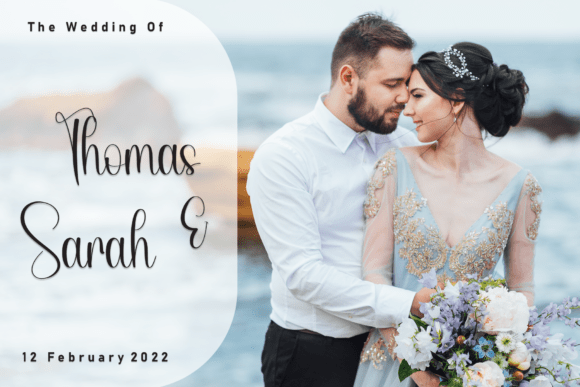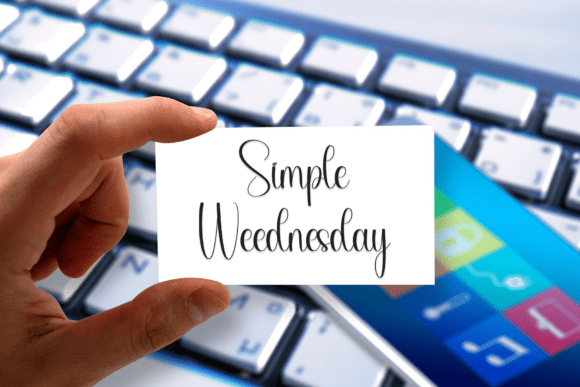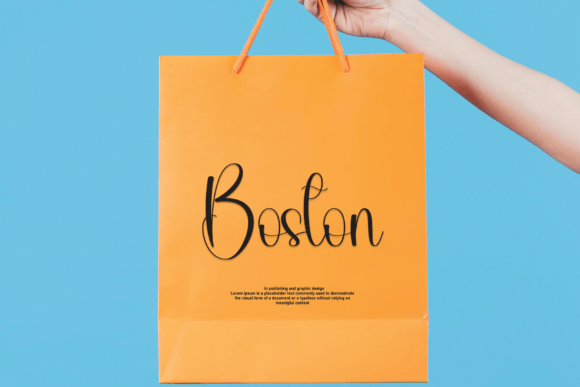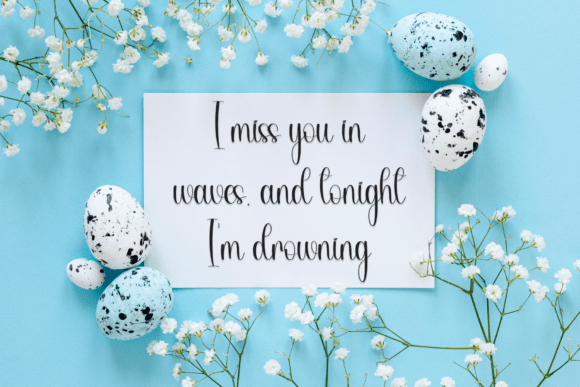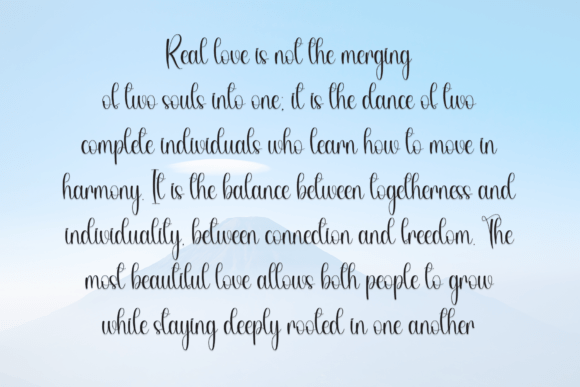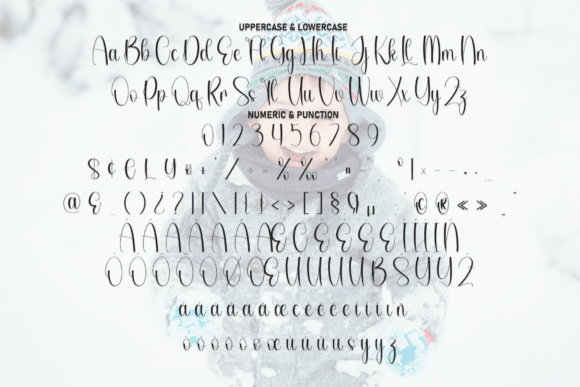
Introducing Babywinter Font: The Whimsical Display Font for Joyful Designs
In the world of typography, few fonts manage to strike the perfect balance between allure and warmth. But Babywinter Font is here to change the game. This delightfully whimsical display font is meticulously curated with the love of craftsmanship, making it the ultimate choice for designers and crafters looking to add a touch of magic to their creations.
The Charm of Babywinter Font
Babywinter Font is gifted with an irresistibly enchanting charm that drenches every word and sentence in a splash of joy. Its unique and playful design makes it perfect for intimate wedding invites, emotive greeting cards, and more. Whether you’re a designer looking to create something special for your clients or a crafter seeking to add a personal touch to your projects, this font is sure to impress.
A Font that Speaks the Language of Affection and Happiness
Babywinter Font is consciously crafted to elicit grins and inject a lively flair into your artistic pursuits. Its jovial design is sure to bring a smile to anyone’s face, making it the perfect choice for projects that require a touch of whimsy and fun. With this exceptionally unique handwritten font, you can let your designs emanate the language of affection and happiness, creating something truly special and memorable.
Babywinter Font is versatile and can be used for a variety of design projects, including:
- Intimate wedding invites and save-the-date cards
- Emotive greeting cards for special occasions
- Whimsical branding and packaging designs
- Playful posters and flyers
- Personalized gifts and crafts
Why Choose Babywinter Font?
So, what sets Babywinter Font apart from other fonts? Here are just a few reasons why designers and crafters love this font:
- Unique and playful design: Babywinter Font boasts a one-of-a-kind design that’s sure to grab attention and leave a lasting impression.
- Highly legible: Despite its whimsical nature, Babywinter Font remains highly legible, making it perfect for body text and headlines.
Tips for Using Babywinter Font
To get the most out of Babywinter Font, here are a few tips to keep in mind:
- Pair it with a neutral font: Babywinter Font is perfect for headlines and titles, but it can be paired with a neutral font for body text to create a beautiful contrast.
- Experiment with colors: This font looks great in a variety of colors, so don’t be afraid to experiment and find the perfect hue for your design.
- Add a personal touch: Babywinter Font is perfect for adding a personal touch to your designs, so consider adding a handwritten element or illustration to make your project truly special.